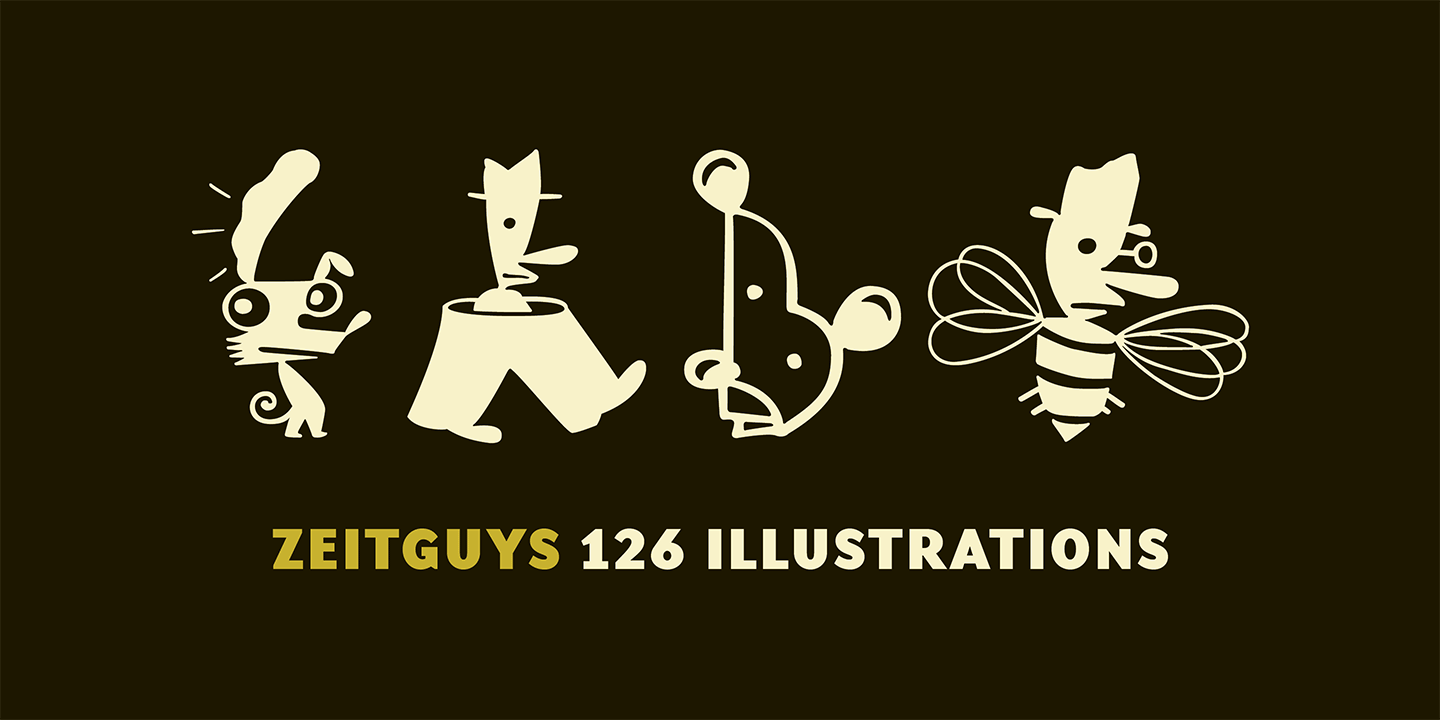
Designed by Eric Donelan and Bob Aufuldish, ZeitGuys is a dingbat font family. This typeface has two styles and was published by Emigre.
Motivation: We were interested in creating a more conceptual set of dingbats. It seemed to us that dingbats and clip art fonts currently available were extremely literal in their meaning or had no meaning at all - they were a piece of cake, or a car, or a little snowflake. We wanted to make a set of icons where meaning was implied where there was none intended. That way, the meaning of the icons will change, over time, by the context in which they appear. After all, what does a bee with a hat really mean? We are anxious to find out. The illustrations are imbued with meaning by those images and text in their proximity - the mind abhors a vacuum.
—Eric Donelan & Bob Aufuldish